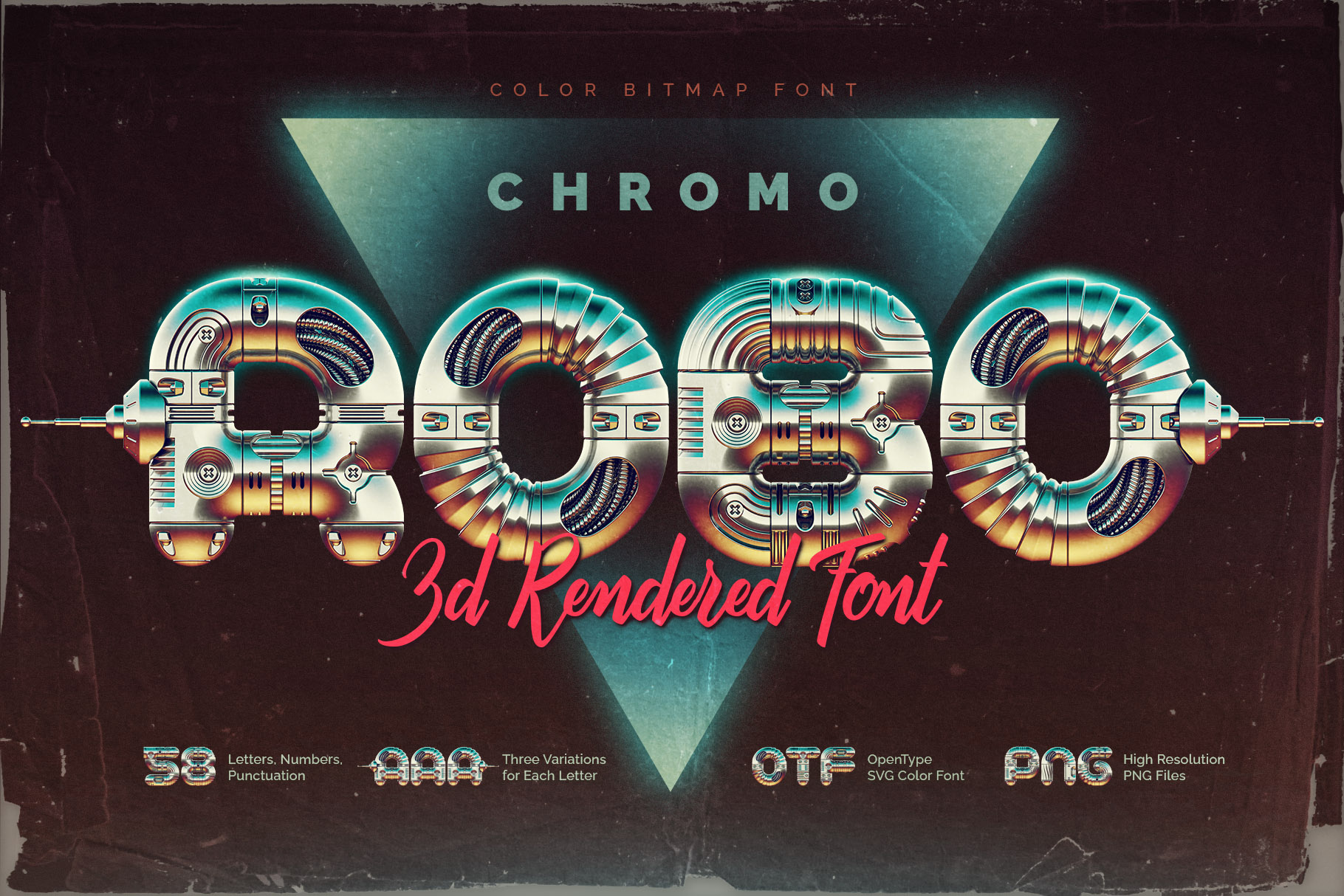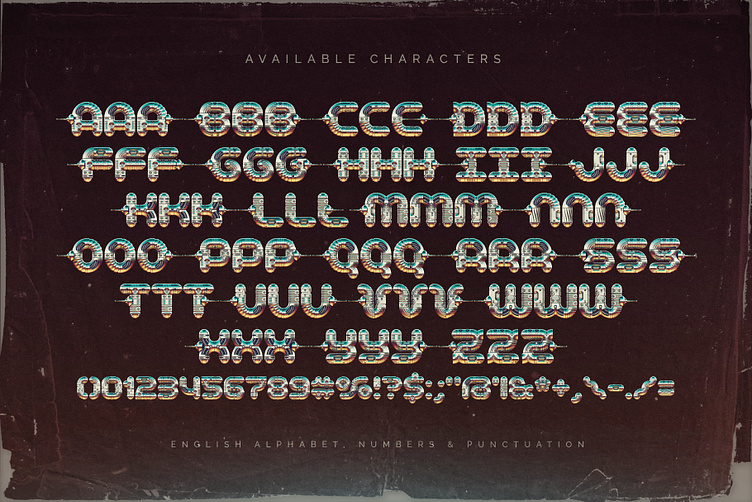
Chromo Robo - Color Bitmap Font
This 3D-rendered display font features a vintage chrome design inspired by retro robot aesthetics of the 1980s. Chromo Robo is a color bitmap OpenType-SVG font, usable just like any standard OTF font. Additionally, the set includes high-resolution PNG files with transparent background.